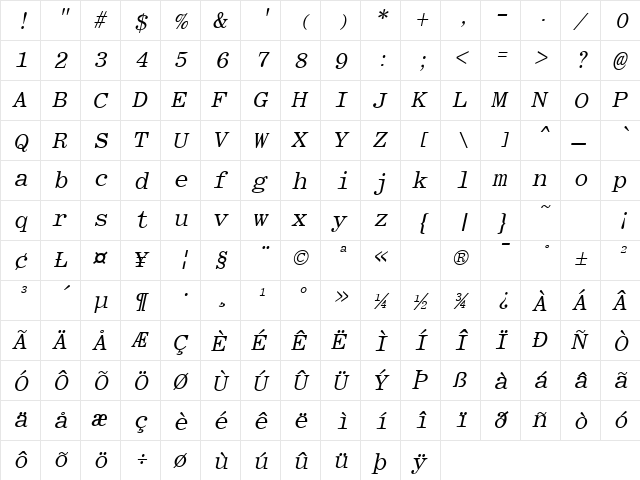
GE Romulus FW Italic
Design Context for GE Romulus FW Typeface
GE Romulus FW is a composed and adaptable typeface that performs quietly and consistently across a wide range of design contexts. The slanted form adds forward momentum and visual energy.
Pro Tip: Use GE Romulus FW for emphasis, pull quotes, and subheadings where its slanted energy can add rhythm to the layout.